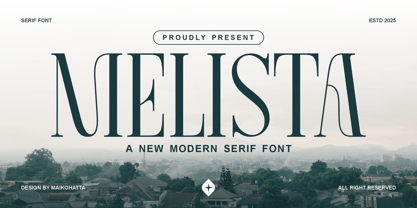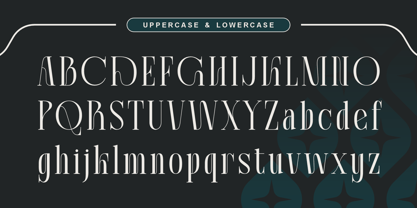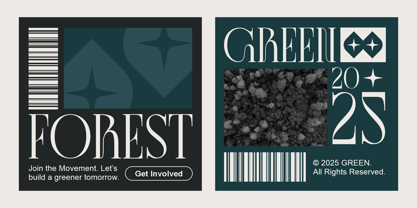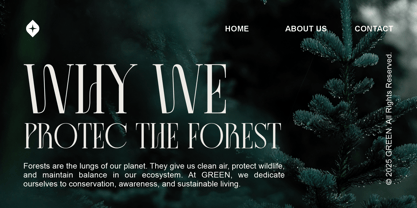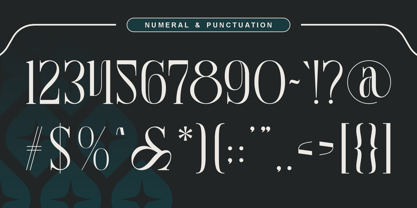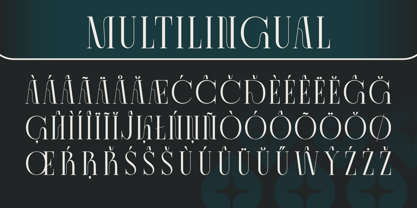
Melista
by Maikohatta
The Melista Font Family was designed by Gilang Ternadho and published by Maikohatta. Melista contains 1 styles. More about this family
Melista – Modern Serif Font Melista is a refined and modern serif typeface that embodies timeless sophistication and contemporary charm. With its tall, graceful letterforms, high contrast strokes, and subtle curves, Melista brings a sense of luxury and elegance to any design. Perfect for branding, editorial layouts, fashion headlines, invitations, and logo design, this font blends classic serif aesthetics with a sleek modern touch.
Designers: Gilang Ternadho
Foundry: Maikohatta